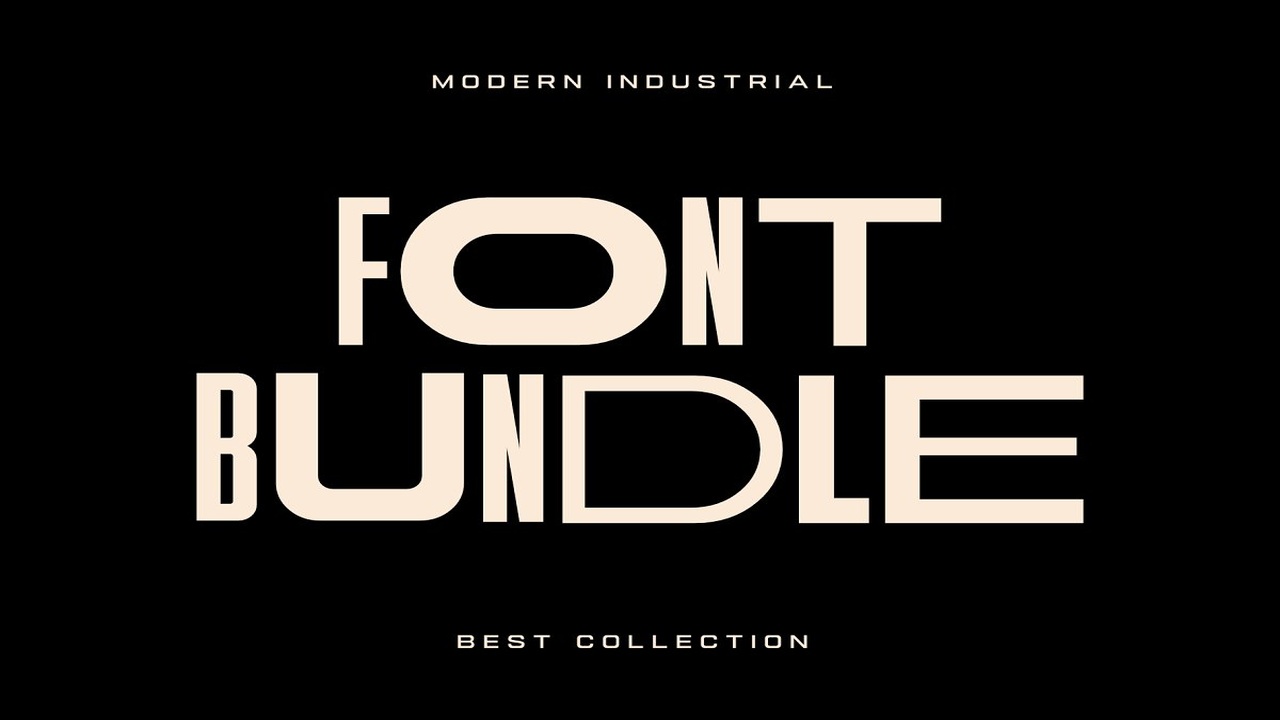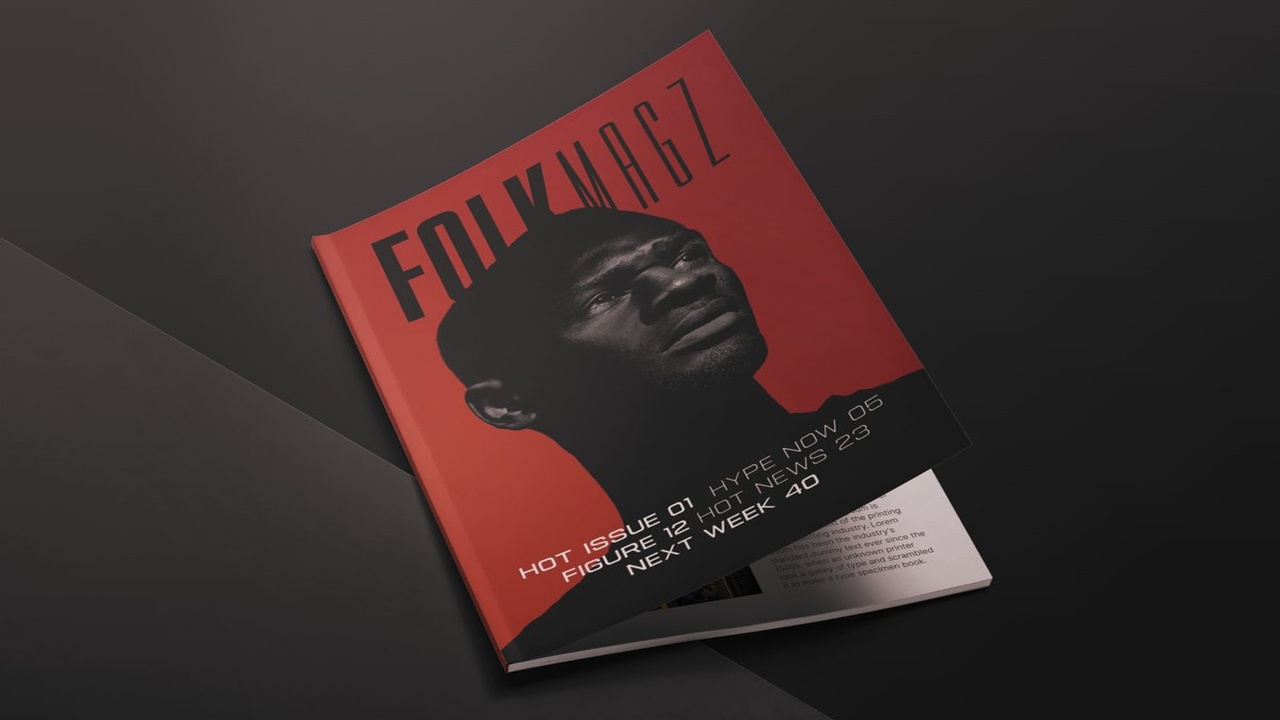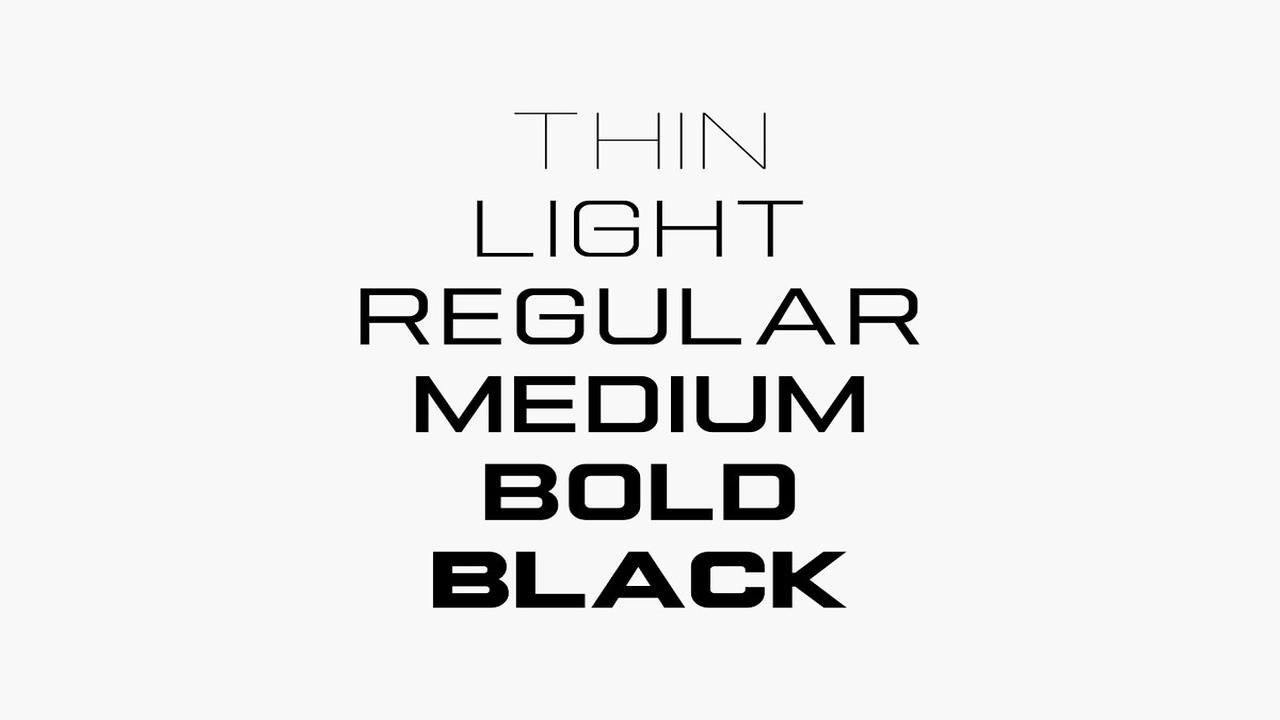
About the Modern Industrial Bundle Font
One of our best font collections is out now, introducing Modern Industrial Font Bundle, Get this Modern Industrial Font Bundle which is very suitable and perfect for industrial design, creative projects and some related to technology, gaming, sci-fi themes etc, By having this font collection (40+ Fonts) and understanding the art and science of typography well will help you to create something truly extraordinary that no one else has ever thought of, such as logo design projects, marketing campaigns, UI design, creative videos, packaging design and similar jobs